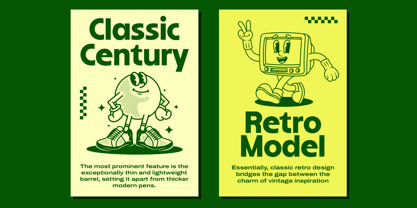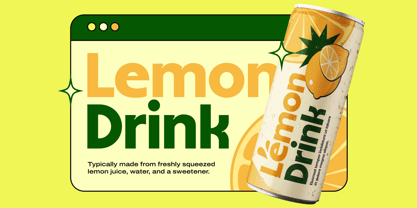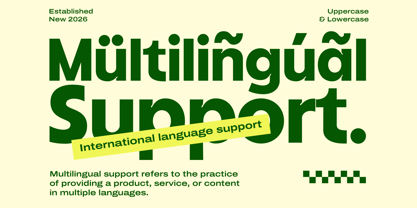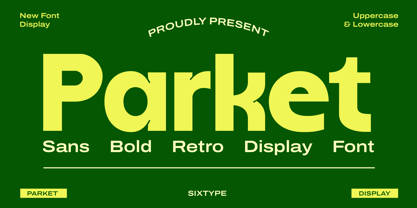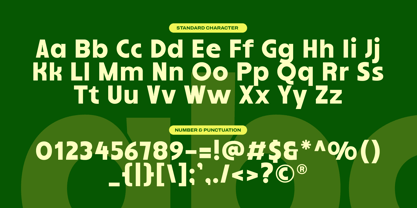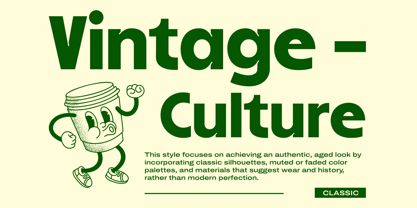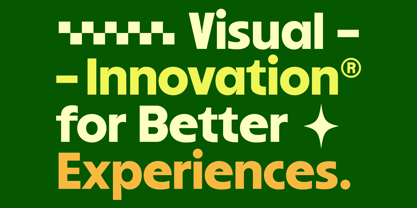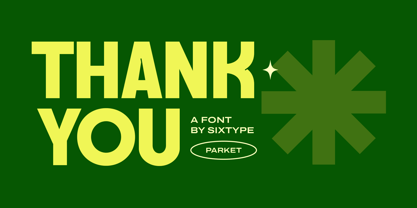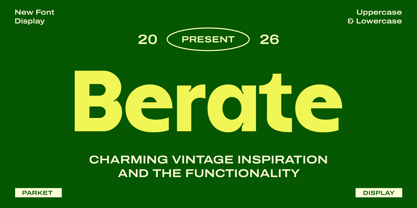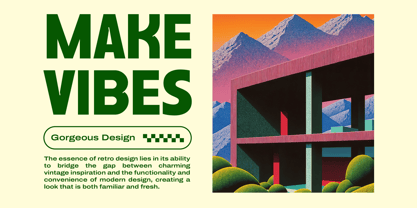
Parket
by Sixtype Foundry
The Parket Font Family was designed by and published by Sixtype Foundry. Parket contains 1 styles. More about this family
Bold Retro Sans Display Font, Parket, is a striking sans display typeface that combines retro-inspired aesthetics with a clean, modern design. Its thick strokes, soft curves, and balanced proportions create a strong visual impact while ensuring high readability. The font harmoniously merges vintage charm with contemporary simplicity, making it an excellent choice for a wide range of applications, from playful to professional projects. With comprehensive uppercase and lowercase support, Parket is ideal for headlines, branding, and bold typographic layouts. This typeface exudes warmth, confidence, and timelessness, making it perfect for designers seeking bold typography that avoids sharp or aggressive edges.